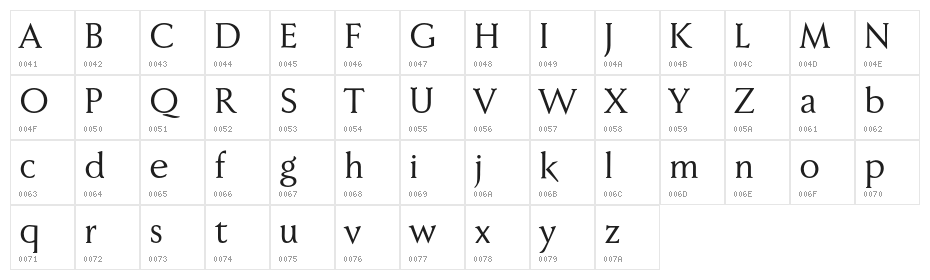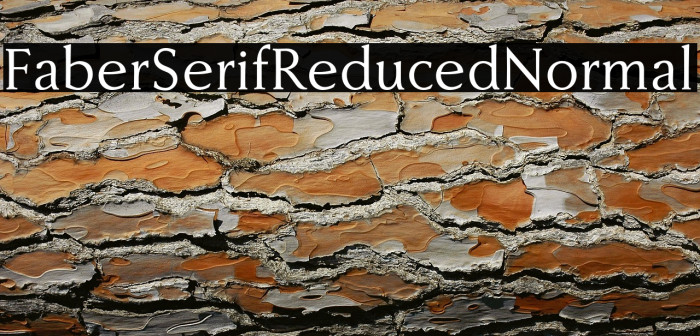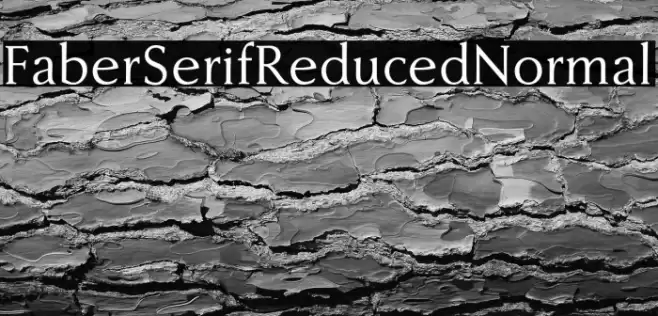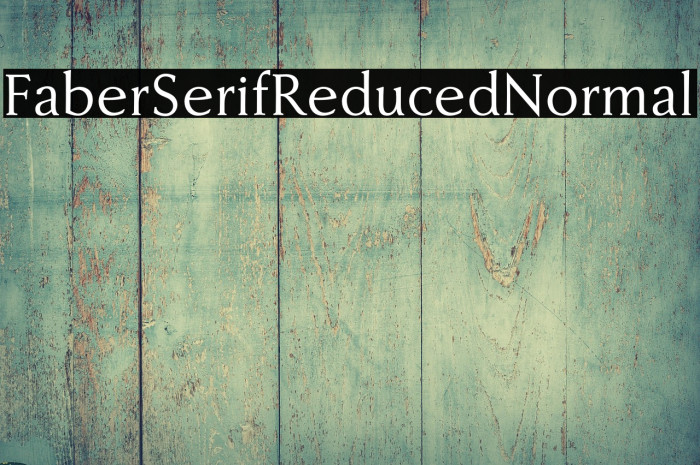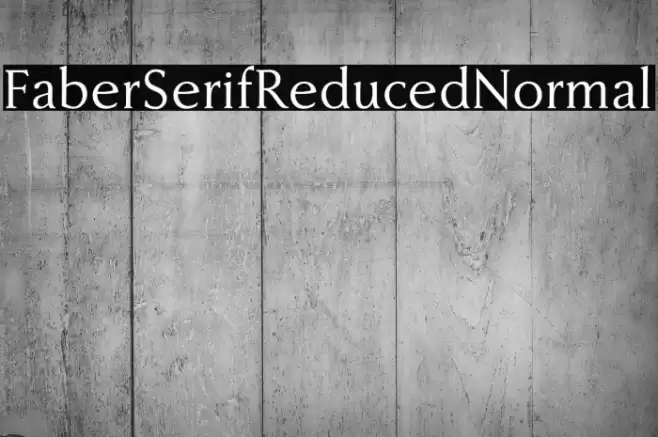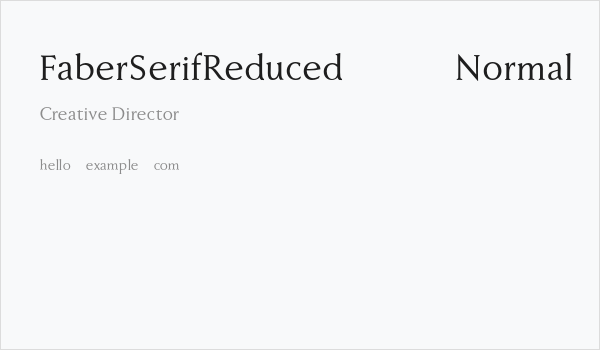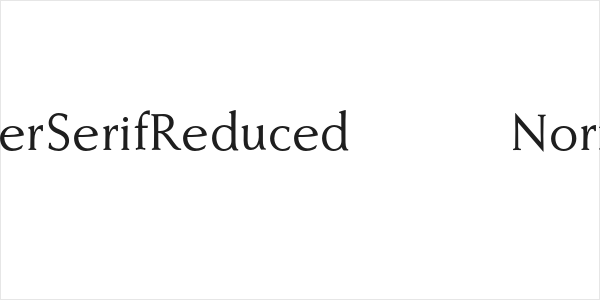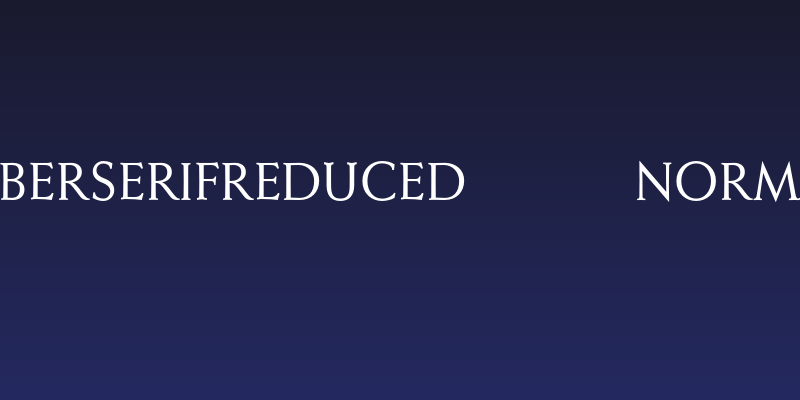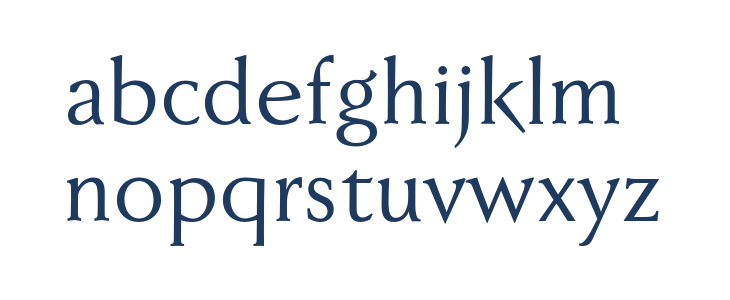
FaberSerifReduced-55Normal Font
FaberSerifReduced-55Normal Description
This serif font exudes a classic and timeless elegance, characterized by its refined and slightly tapered strokes. The uppercase letters are stately and well-proportioned, while the lowercase letters maintain a harmonious balance with subtle curves and a moderate x-height. The serifs are pronounced yet not overly exaggerated, providing a sense of stability and readability. The font's overall appearance is sophisticated, making it suitable for formal and professional settings. Its design ensures clarity and legibility, even at smaller sizes, while maintaining a distinctive character.
| Use Case | Headlines, Body text |
| Proposed Projects | Ideal for editorial design, book covers, formal invitations, and branding for luxury products. |